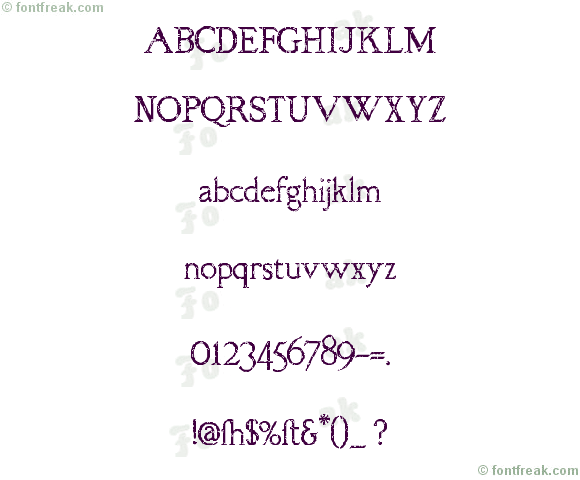
About RM Almanack Old
RM Almanack Old is a sophisticated serif typeface designed by Ray Meadows and released under a freeware license in 2010. This font embodies a classic aesthetic with a timeless charm, making it an ideal choice for a variety of creative projects. The visual characteristics of RM Almanack Old are defined by its moderate stroke weight, offering a balanced and elegant appearance. The font showcases subtle contrast between thick and thin strokes, enhancing its readability while maintaining a refined style. The generous spacing between characters contributes to its legibility, making it suitable for both print and digital applications.
This versatile font finds its best use in several specific contexts. It is an excellent choice for wedding invitations, where its elegant and traditional feel can enhance the romantic atmosphere. RM Almanack Old also works beautifully on movie posters, providing a classic touch that can evoke nostalgia. Restaurant menus can benefit from its sophisticated look, helping to elevate the dining experience by conveying a sense of quality. Additionally, this font is suitable for branding projects, particularly for small businesses looking to establish a refined identity.
The target audience for RM Almanack Old includes graphic designers, small business owners, and content creators who appreciate high-quality typography. Those who seek a touch of elegance in their designs will find this font to be a valuable asset.
What sets RM Almanack Old apart is its unique blend of classic serif elements with modern usability. The font balances tradition and contemporary design, making it a versatile tool for various creative endeavors. With RM Almanack Old font free download available, you can easily incorporate this elegant typeface into your next project, enhancing your designs with its distinctive character and timeless appeal.